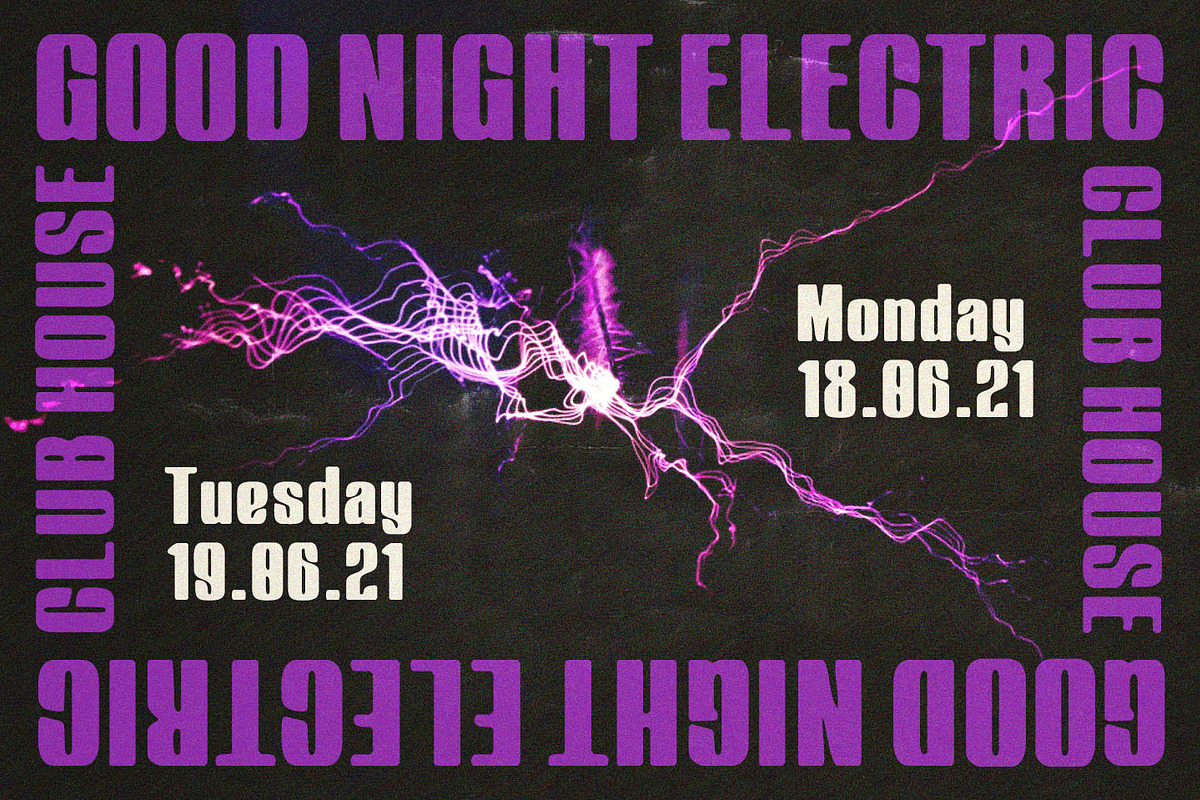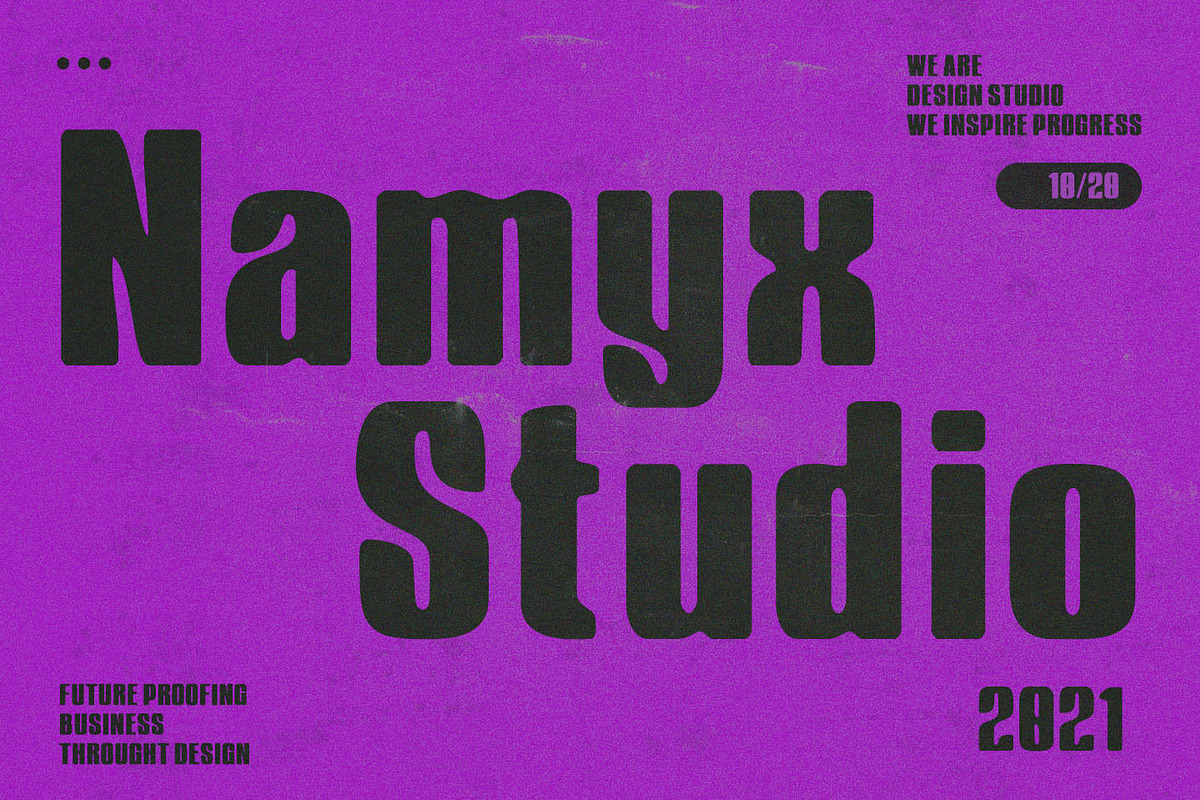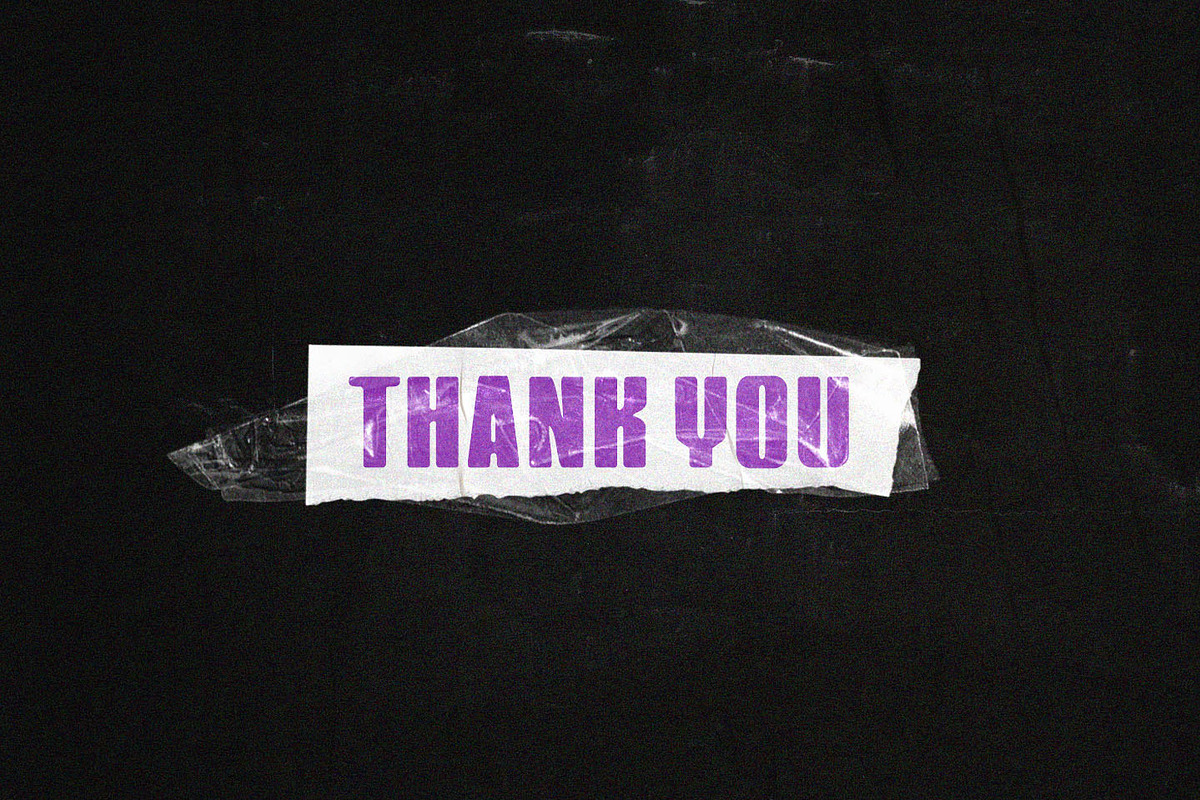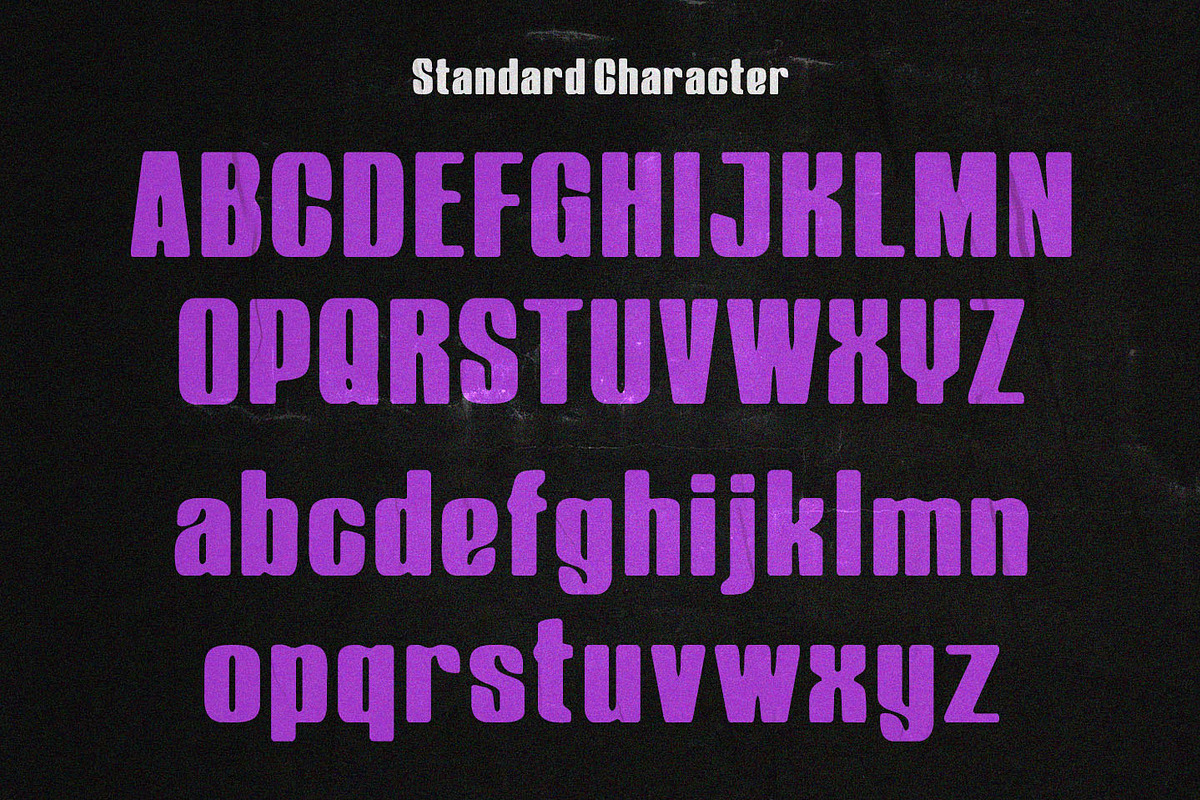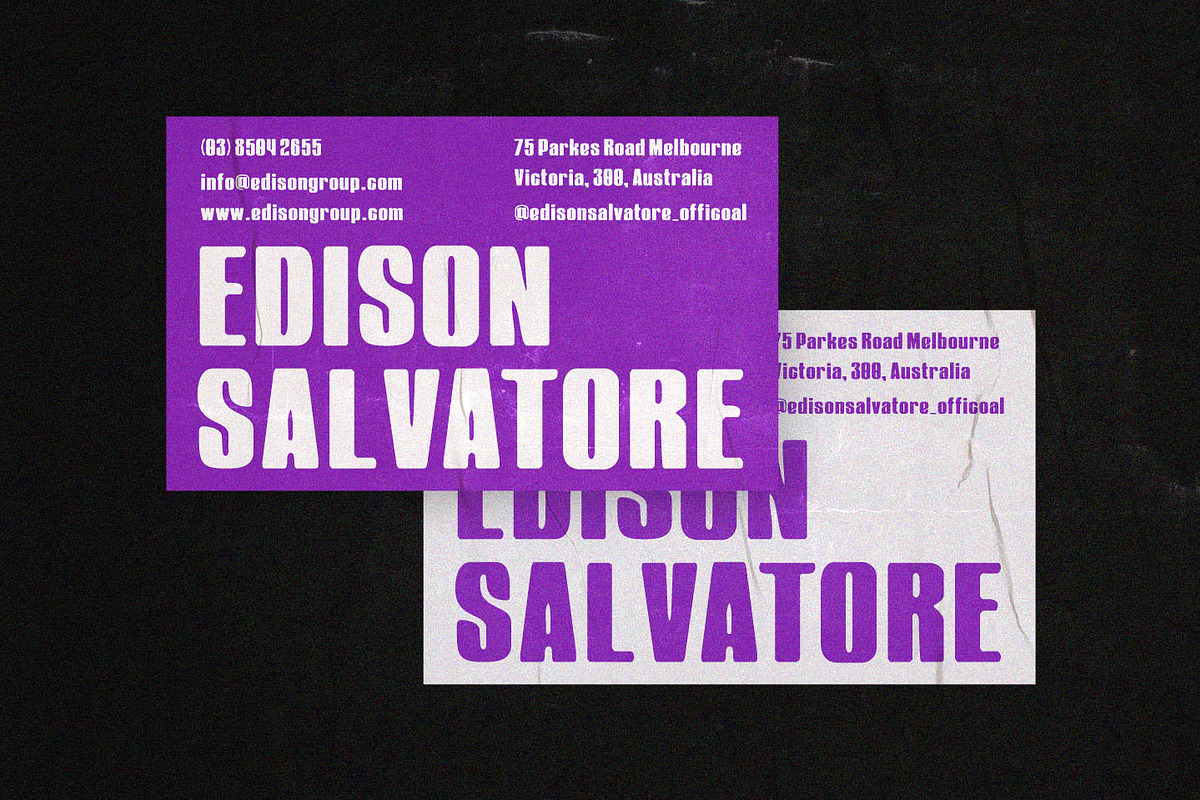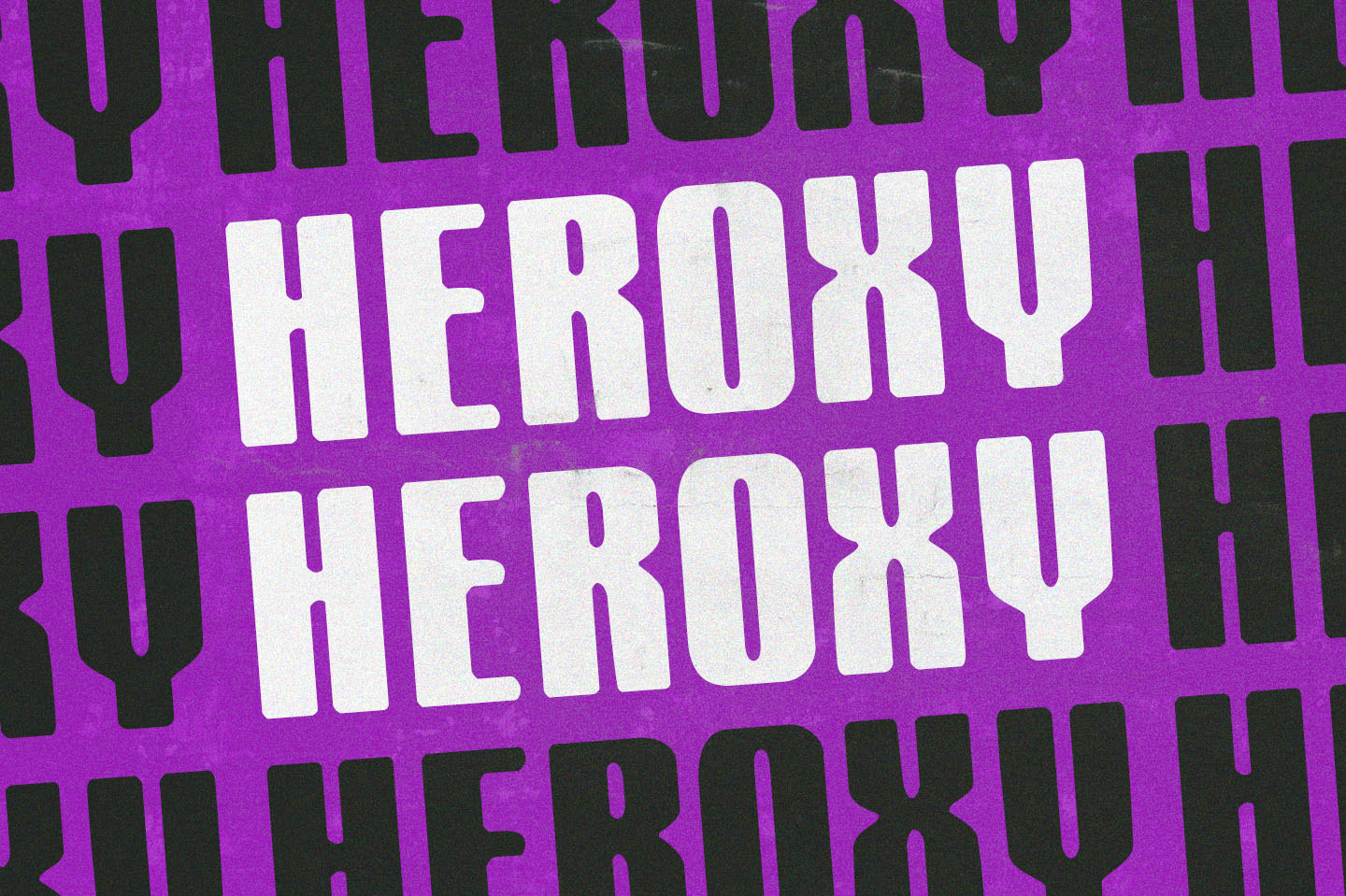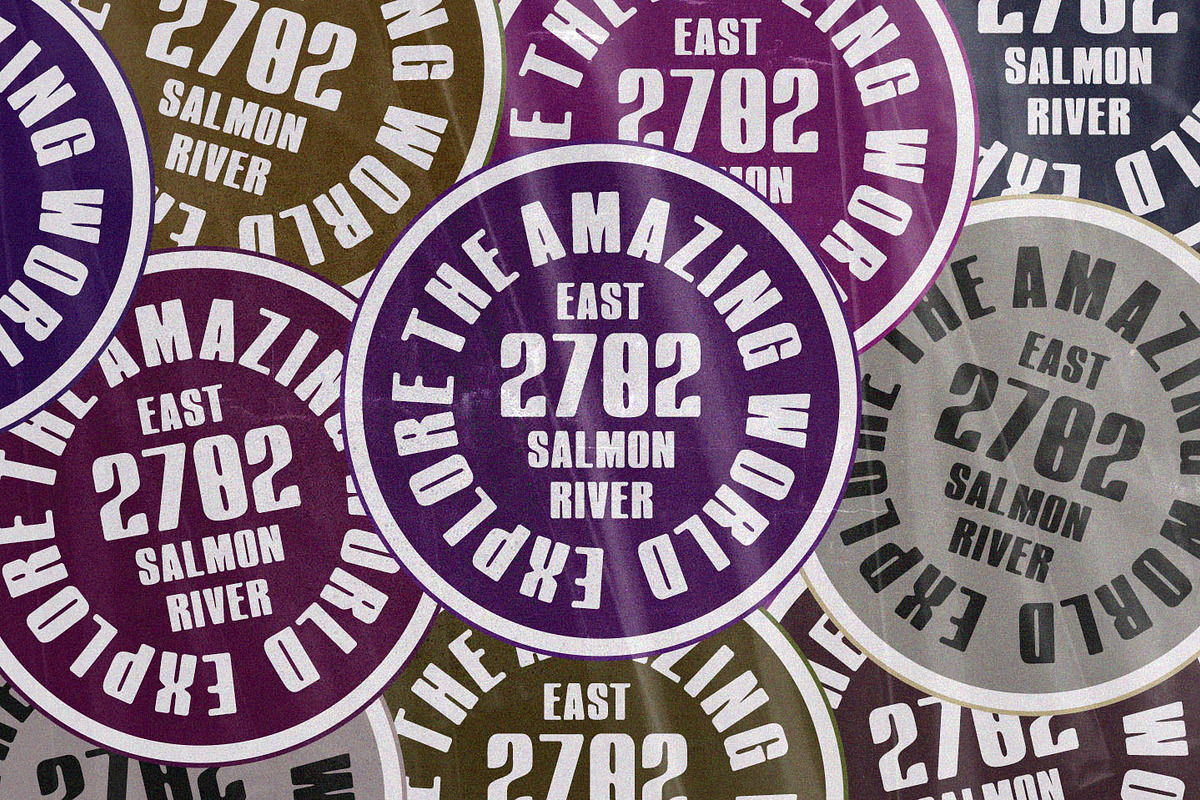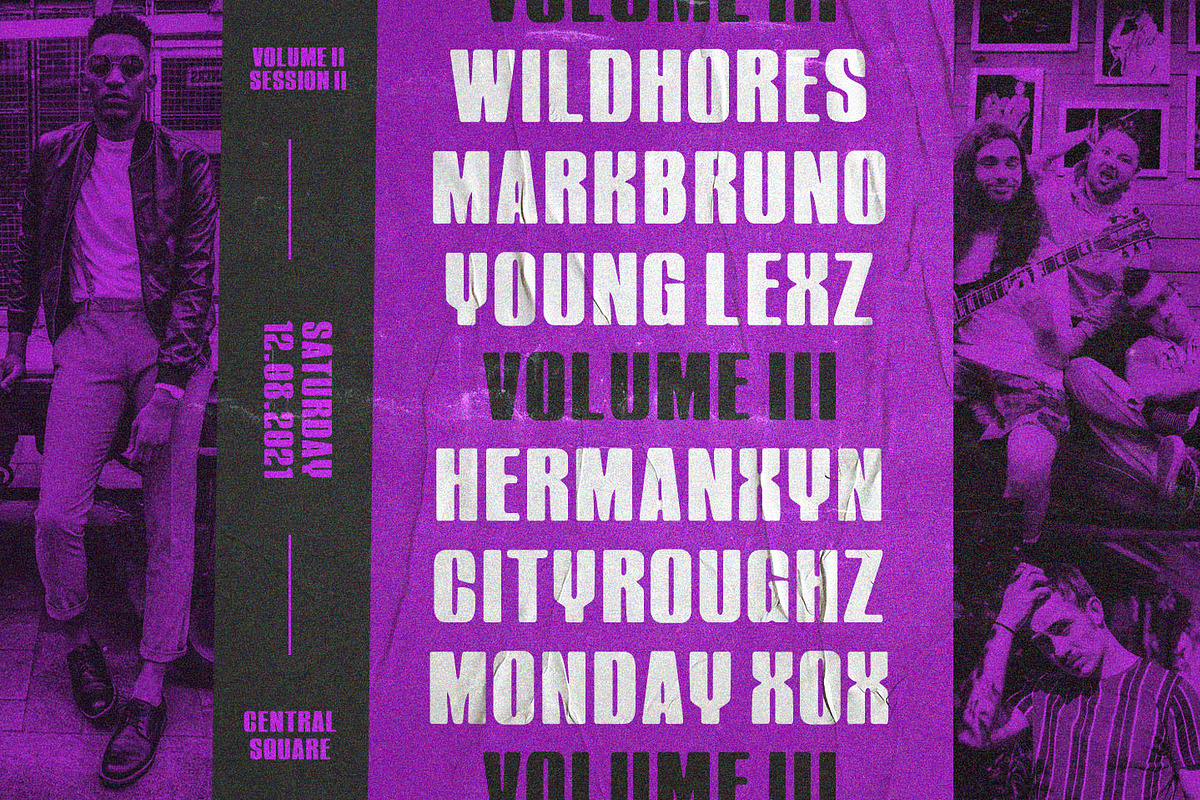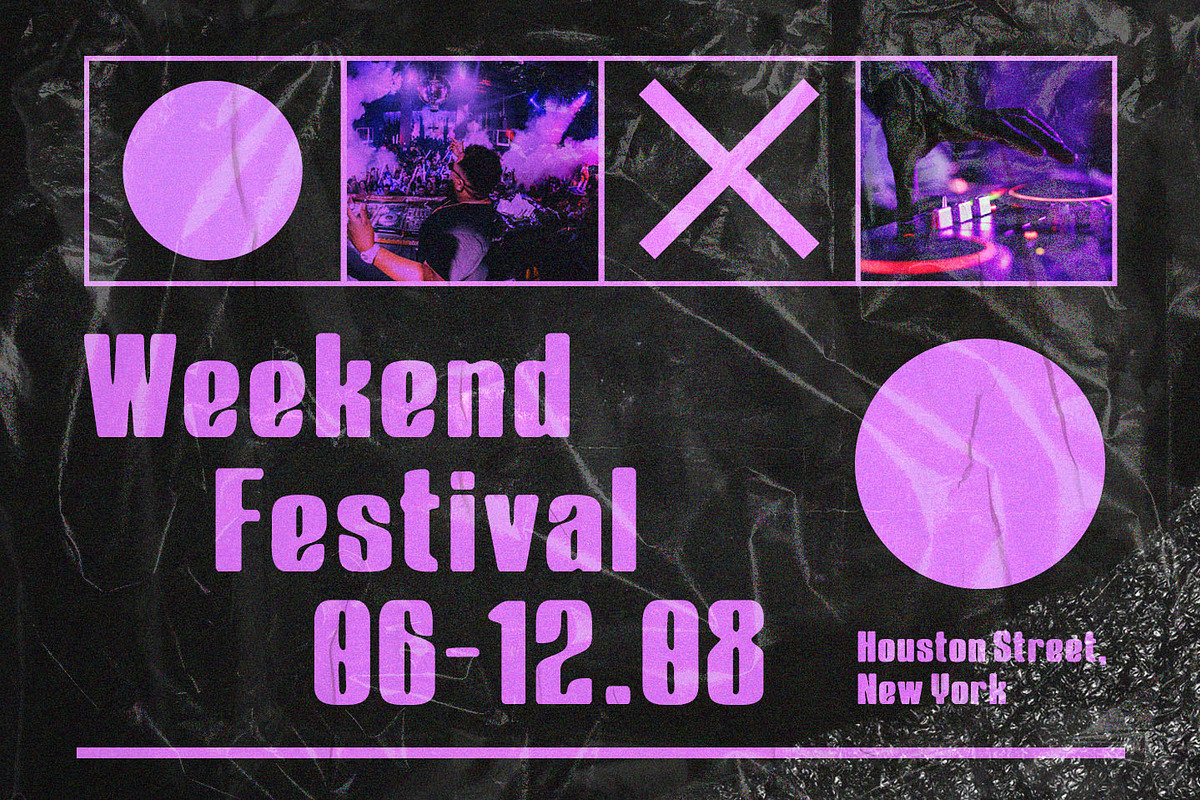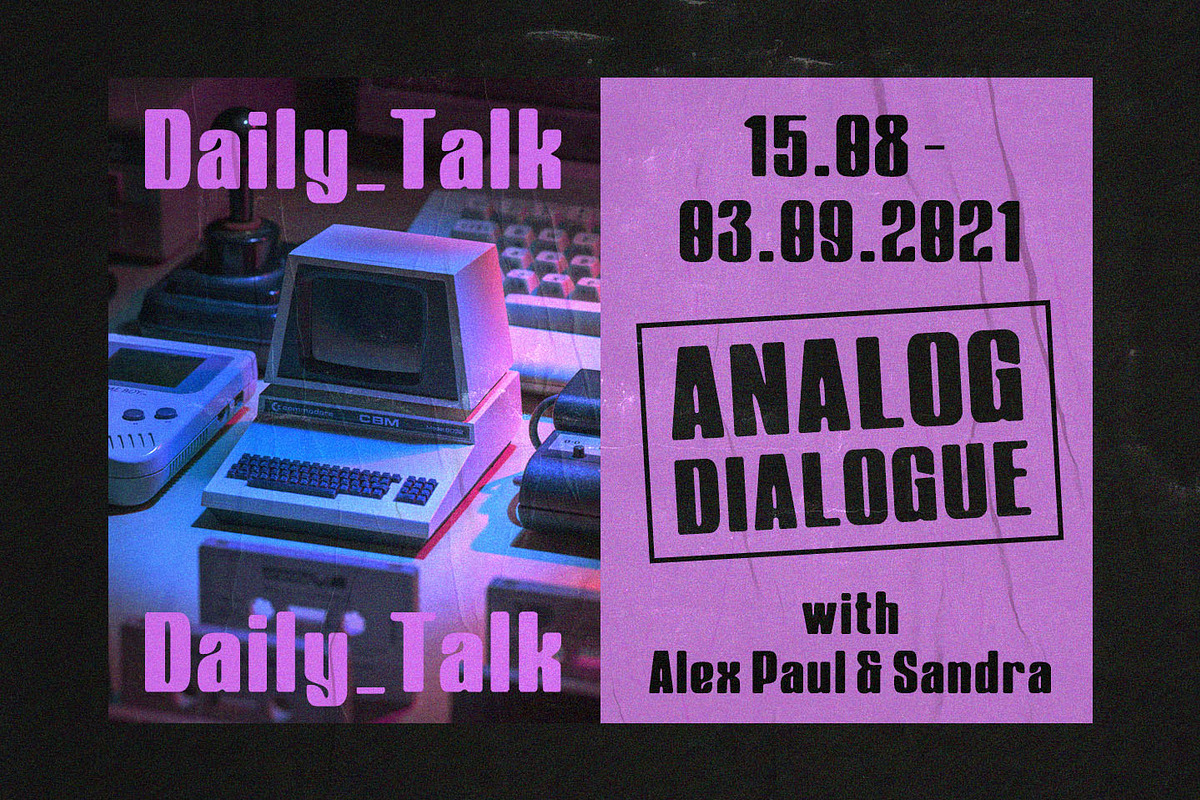
Heroxy Display Font
Heroxy is an sans serif display font, and with a style that is very different from the others.
Heroxy is well-suited for posters, social media, headlines, magazine titles, clothing, large print formats - and wherever you want to be seen. Inspired by the style of design that is currently popular, and this is the answer to all the needs of every idea that you will pour in this modern era.